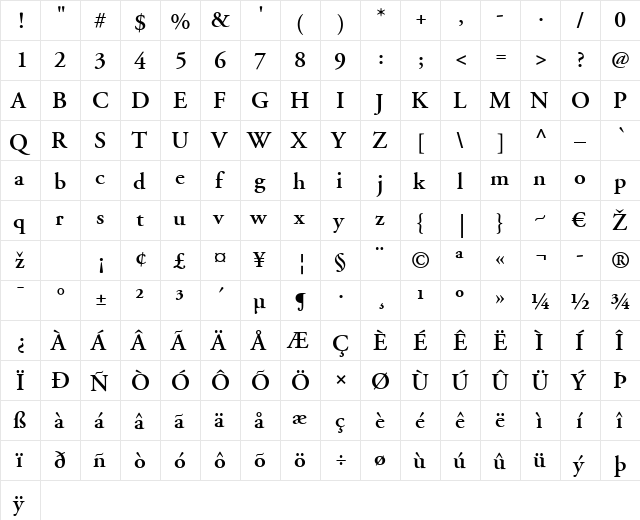
AGaramond LT Bold Font Preview
AGaramond LT Bold
Design Context for AGaramond LT Typeface
AGaramond LT is a composed and adaptable typeface that performs quietly and consistently across a wide range of design contexts. Its bold stroke weight gives it real presence on the page.